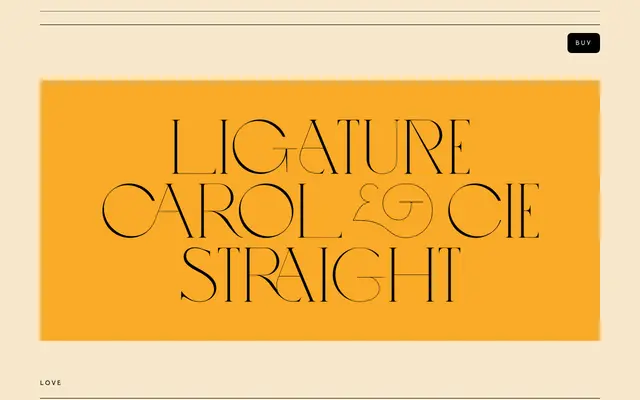
Love
An all-caps display typeface inspired by the 1967 Love album Forever Changes, built around exaggerated counter-forms, thin stems and a generous set of alternates per letter.
Designed by Jérémy Schneider in 2018, the typeface draws directly from the visual world of American psychedelic rock, each letter offered in at least two stylistic variants with some receiving far more. The contrast between swelling counters and thread-like stems gives individual characters strong personality while still maintaining equilibrium across set words. An extensive ligature set and interchangeable alternates covering both upper and lowercase make it unusually flexible for a single-weight display font.
An all-caps display typeface with exaggerated counter-forms and thin stems, designed explicitly as a display font in a single weight. Its psychedelic rock inspiration and expressive alternates place it firmly in the display category.